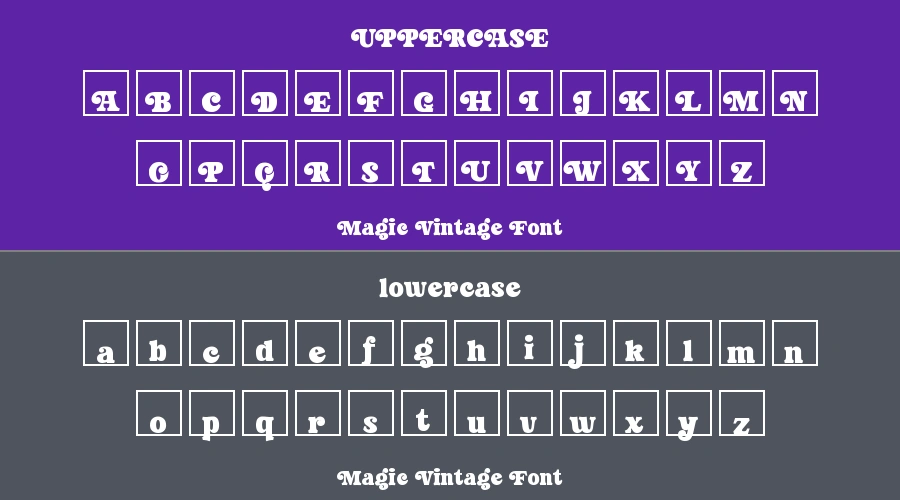
About Magic Vintage Font
Magic Vintage Font embodies typographic excellence through its masterful combination of distinctive details and optical adjustments. Created for packaging hero, this typeface delivers exceptional authenticity and market relevance across all applications. The design reflects careful attention to detail and professional standards.
Advanced capabilities include distinctive decorative alternates and versatile stylistic sets, giving designers creative control. When used in instruction steps, Magic Vintage Font exhibits remarkable OCR compatibility. The harmonious balance between vertex treatment and artistic value sets this typeface apart.